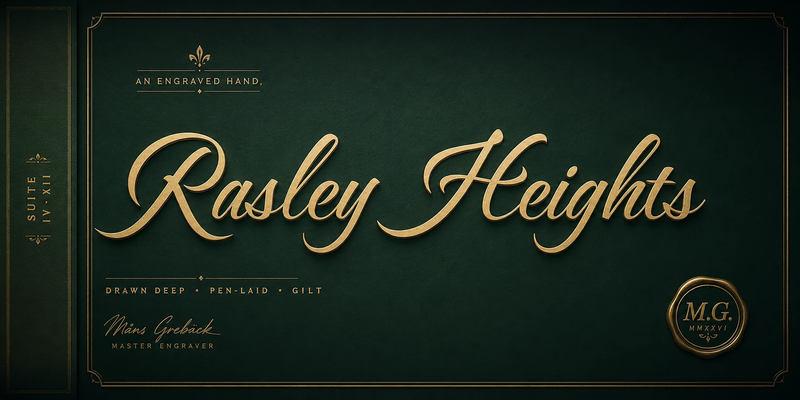
Rasley Heights
NOTE: This font is for PERSONAL USE ONLY! To purchase a commercial license, visit: https://www.mansgreback.com/product/rasley-heights Rasley Heights is a high-contrast calligraphy script built around long, drawn-out swashes and broad capitals. The hand behind it leans hard on the downstroke and lifts to a hairline on the way back up, the way a pointed pen does when the writer trusts the paper. Caps open with a wide loop and finish in a curl that reaches into the next letter. Lowercase moves more steadily, keeping the rhythm while the capitals carry the show. It belongs on a hotel marquee, the cover plate of a wedding invitation, the brass nameplate of a building that wants to look older than it is. For questions, please visit https://mansgreback.com/faq